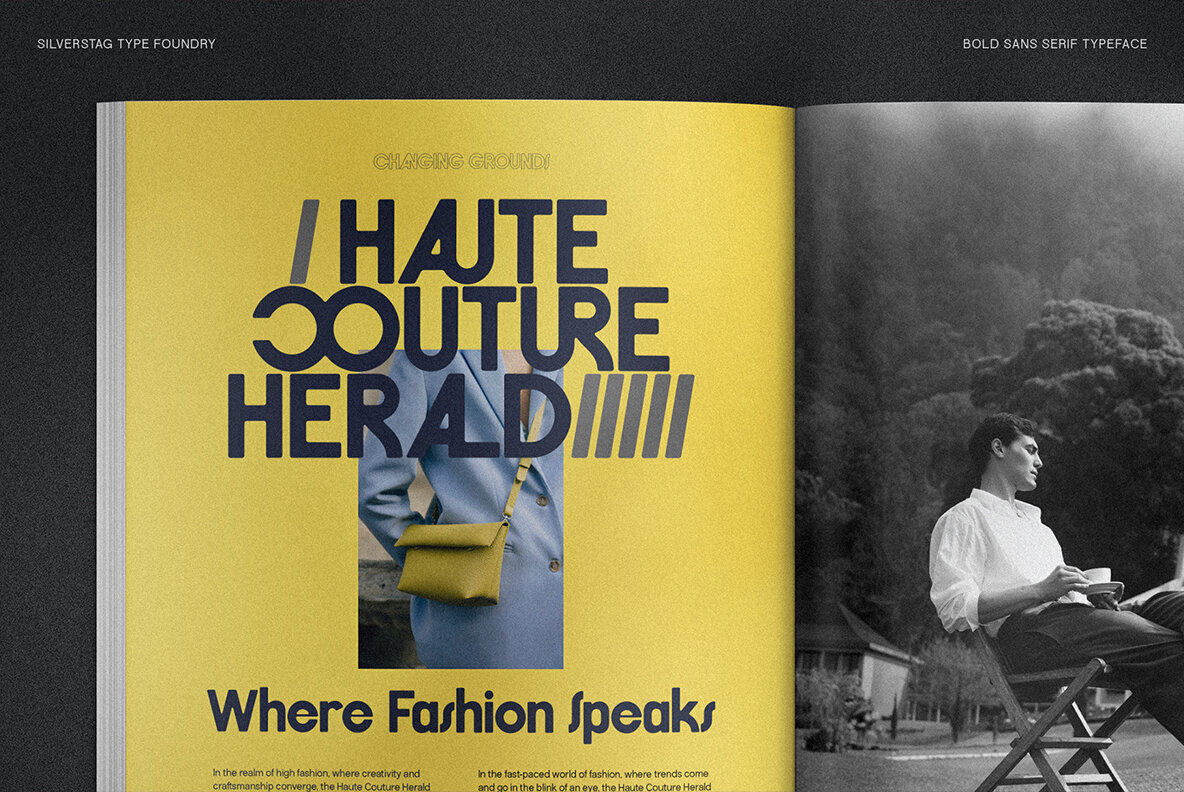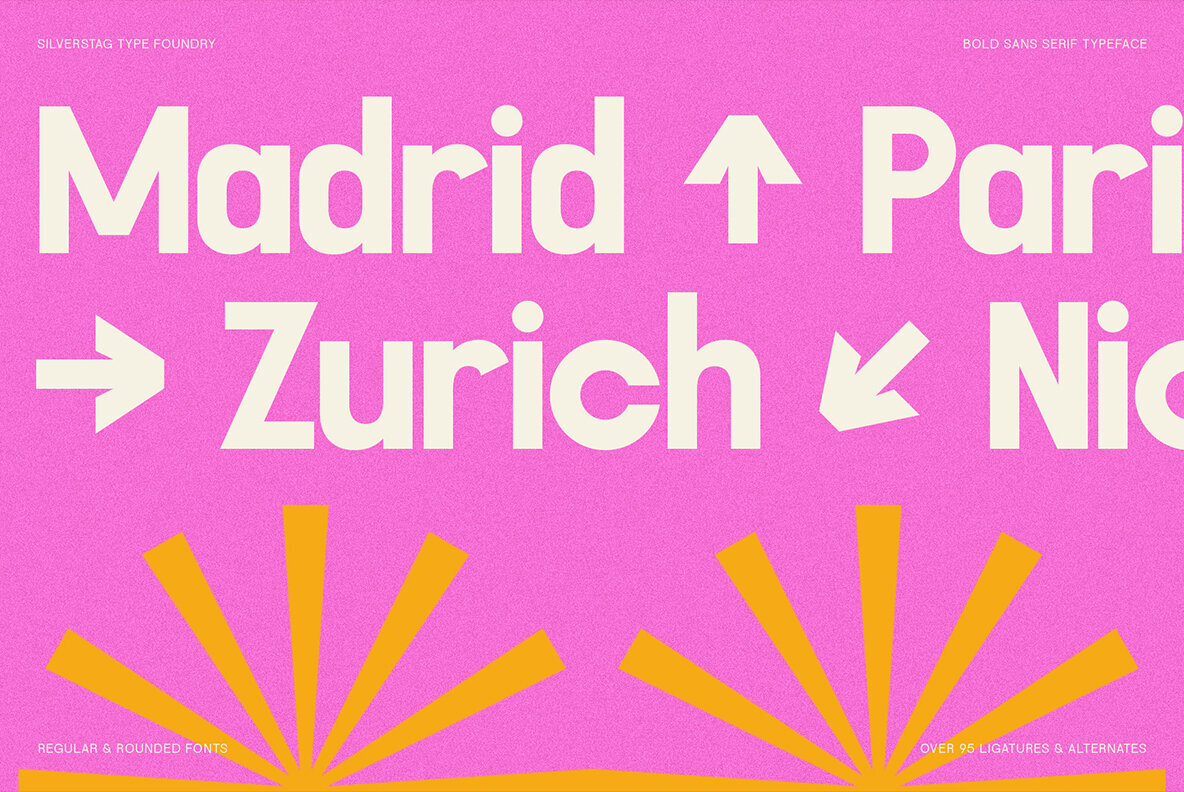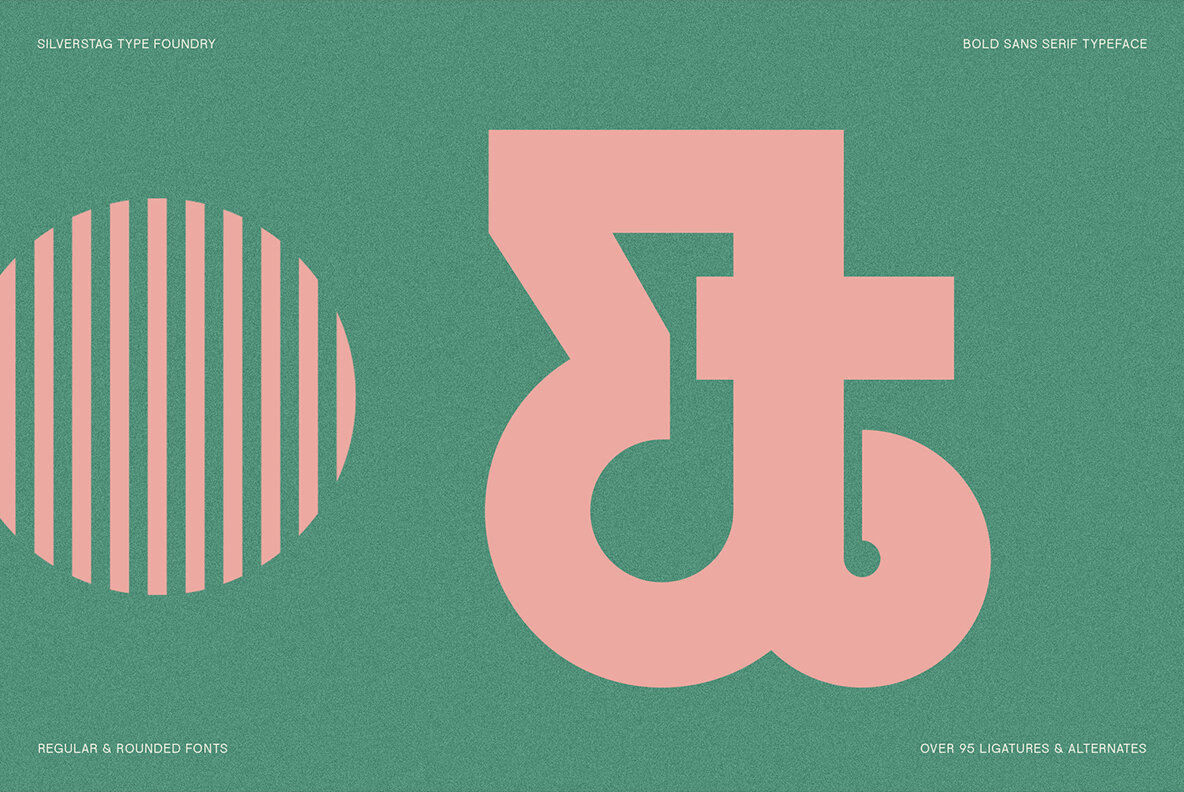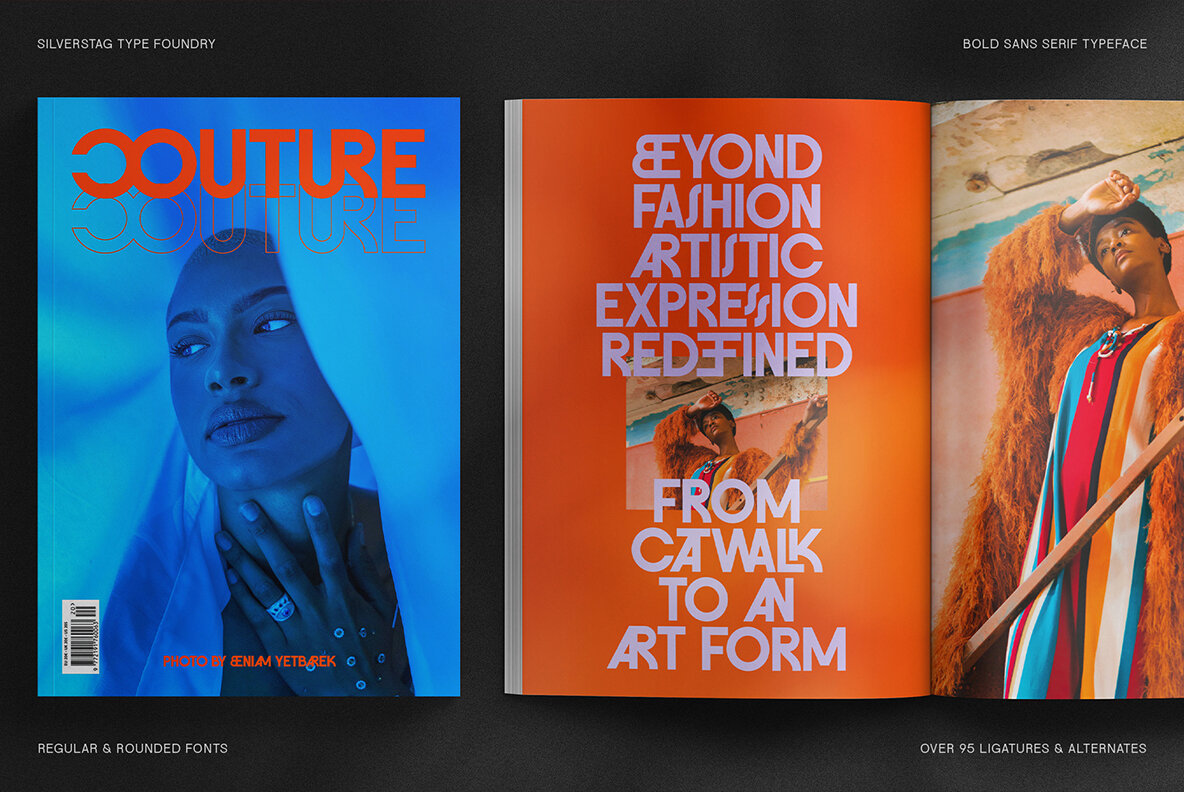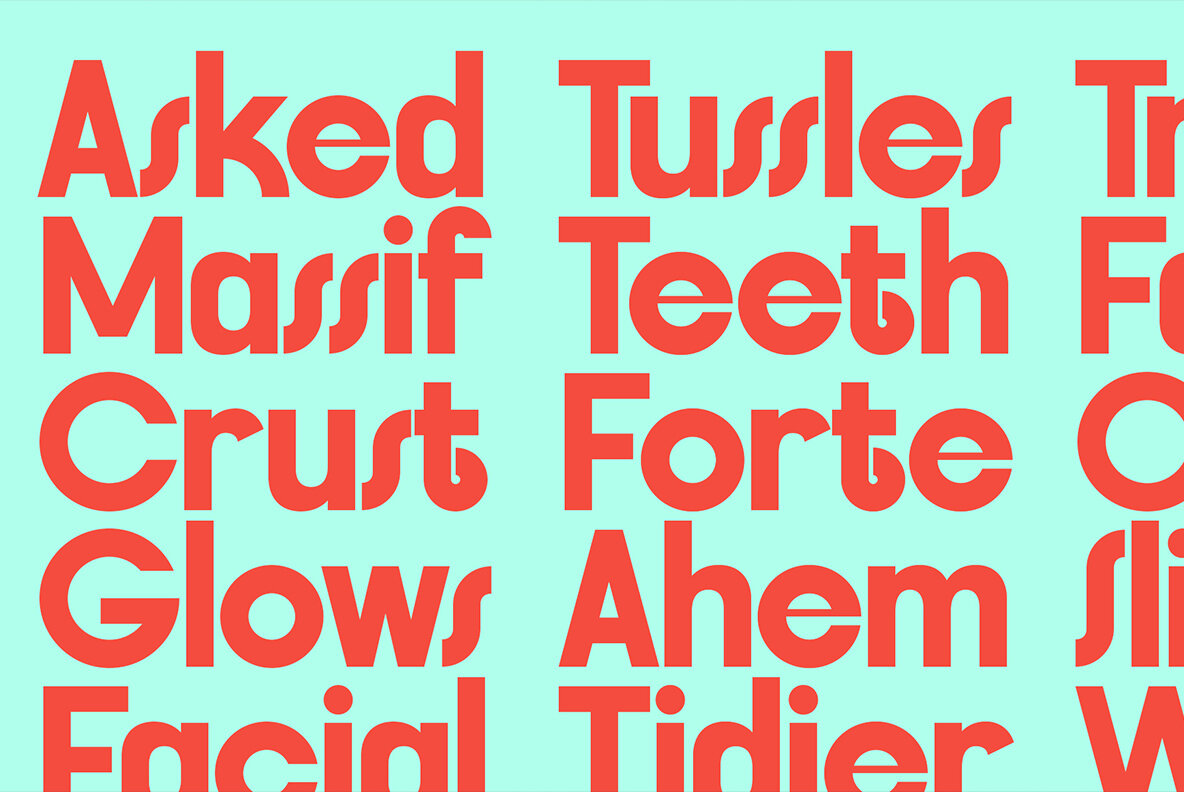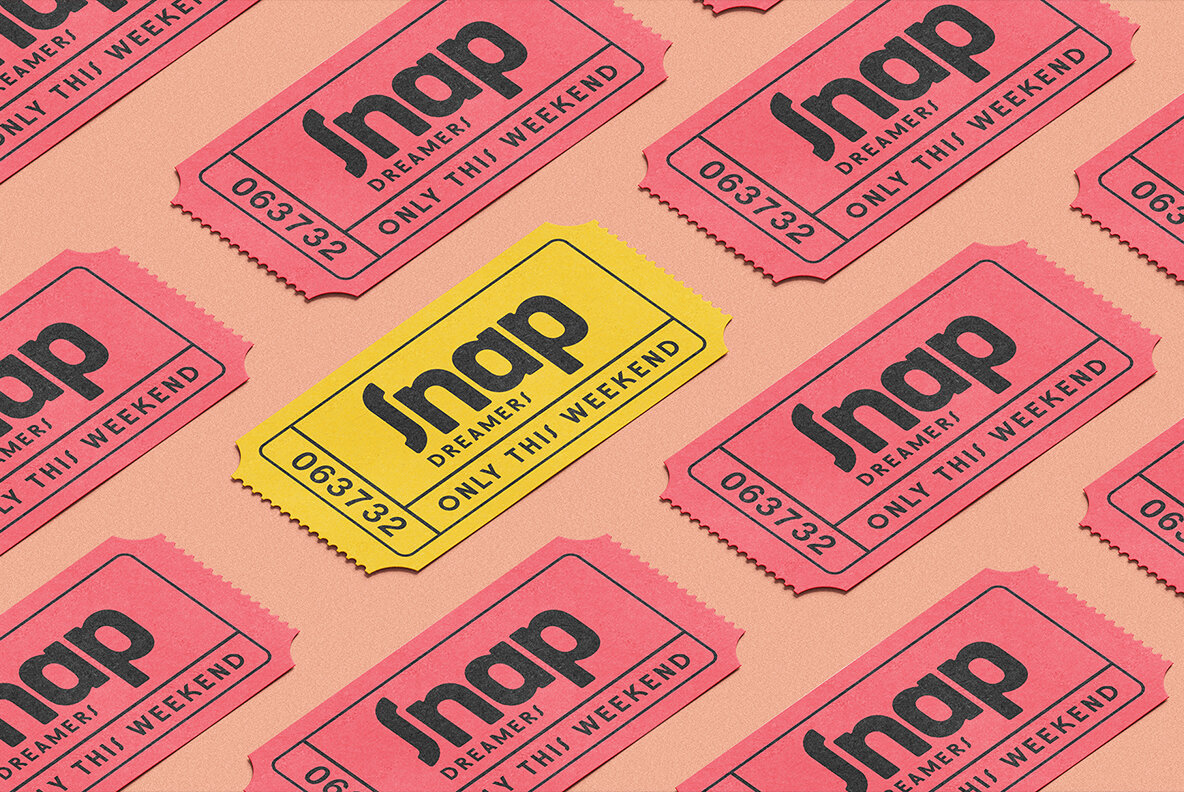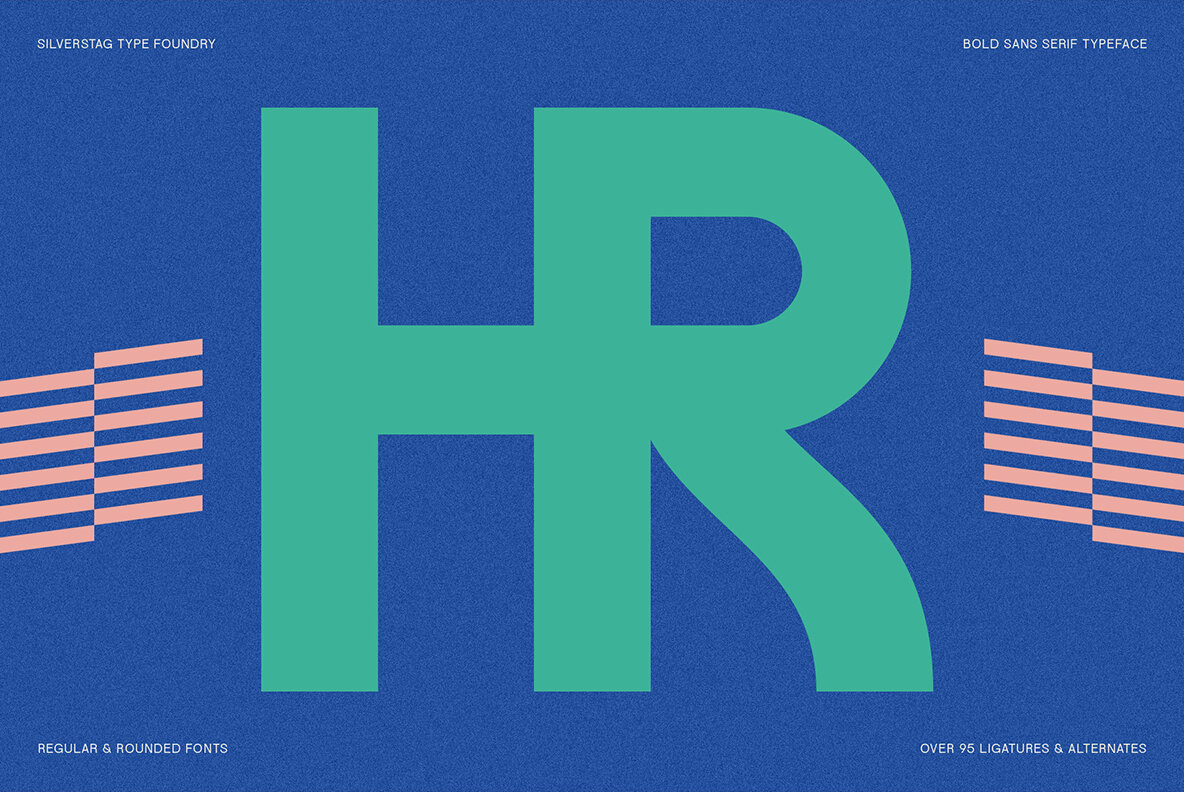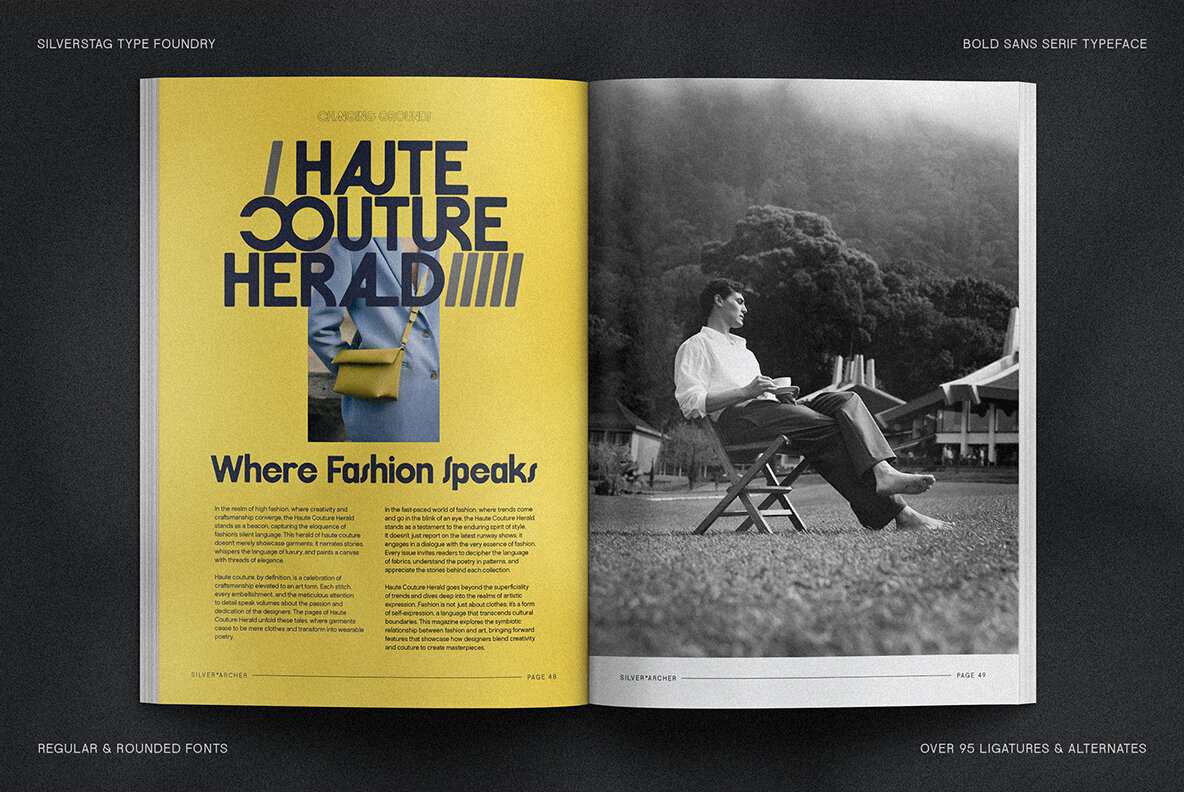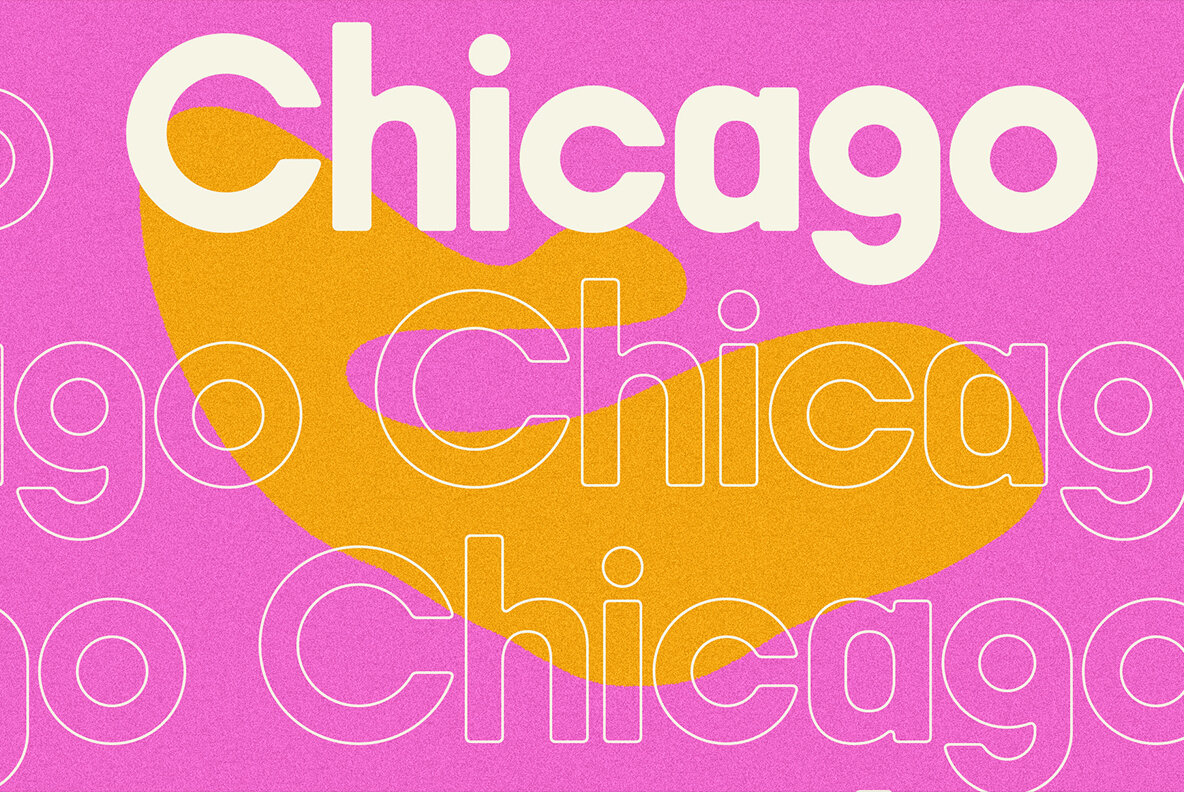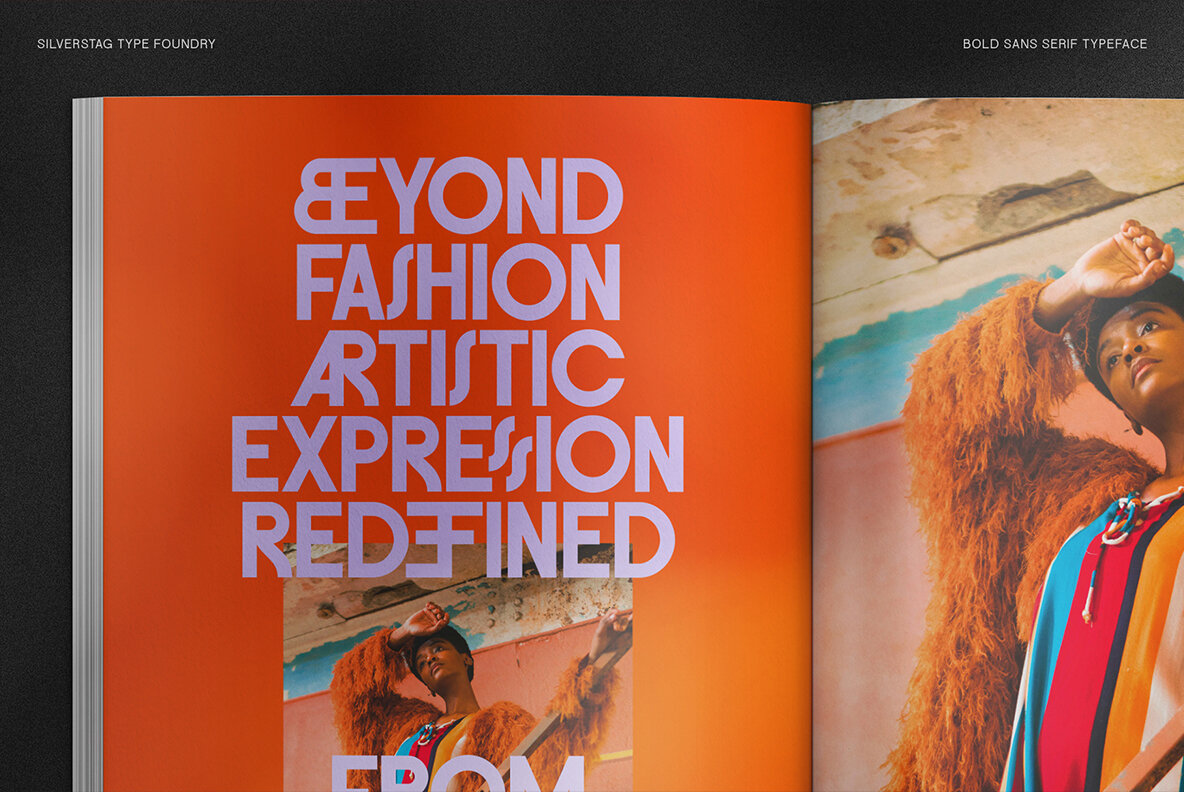
FlyBridge Font
FlyBridge Regular
FlyBridge Regular Outline
FlyBridge Rounded
FlyBridge Rounded Outline
Introducing FlyBridge: The Bold, Ligature-Rich Sans Serif Font That's Taking Design by Storm Unleash your inner typographic daredevil with FlyBridge, the unapologetically bold sans serif font that's packed with personality and style. With over 95 unique ligatures and support for 90+ languages, FlyBridge is the ultimate tool for creating eye-catching headlines, logos, and branding that demand attention. Fly High with Four Unique Styles: Unleash Your Creativity: FlyBridge's extensive ligature collection allows you to effortlessly create unique and captivating word forms. Explore the endless possibilities and let your imagination soar! Perfect for: Key Features: